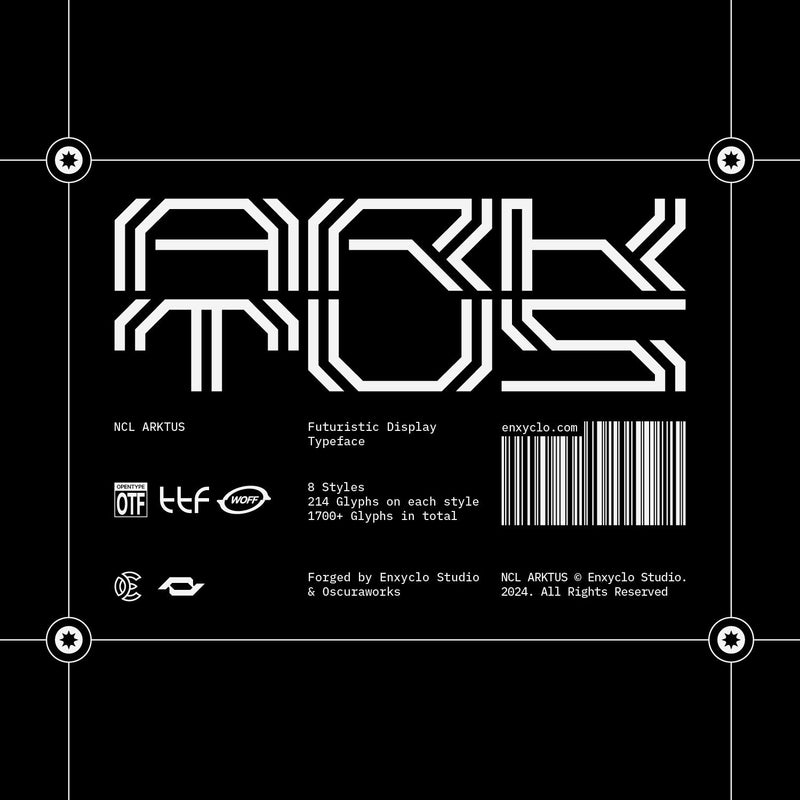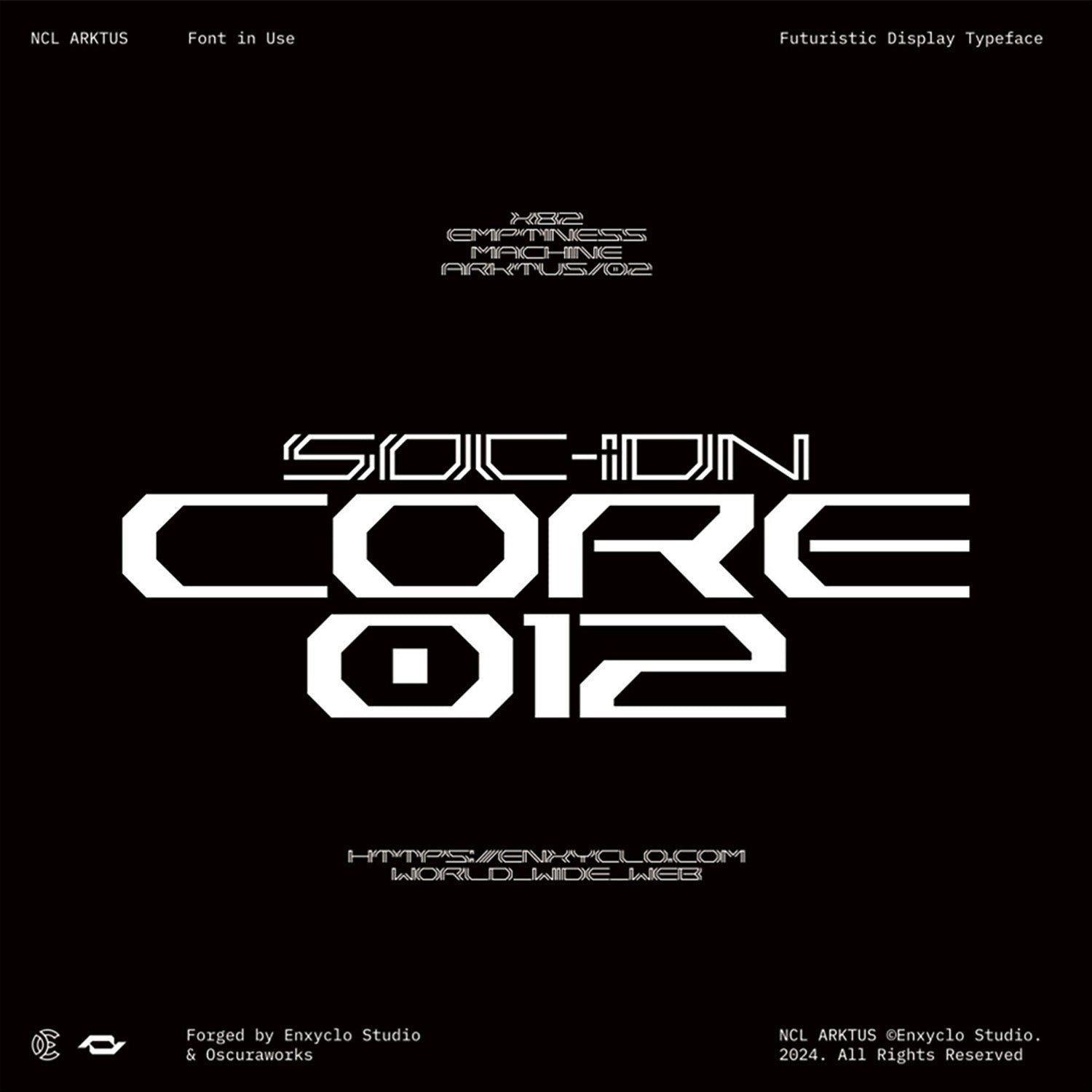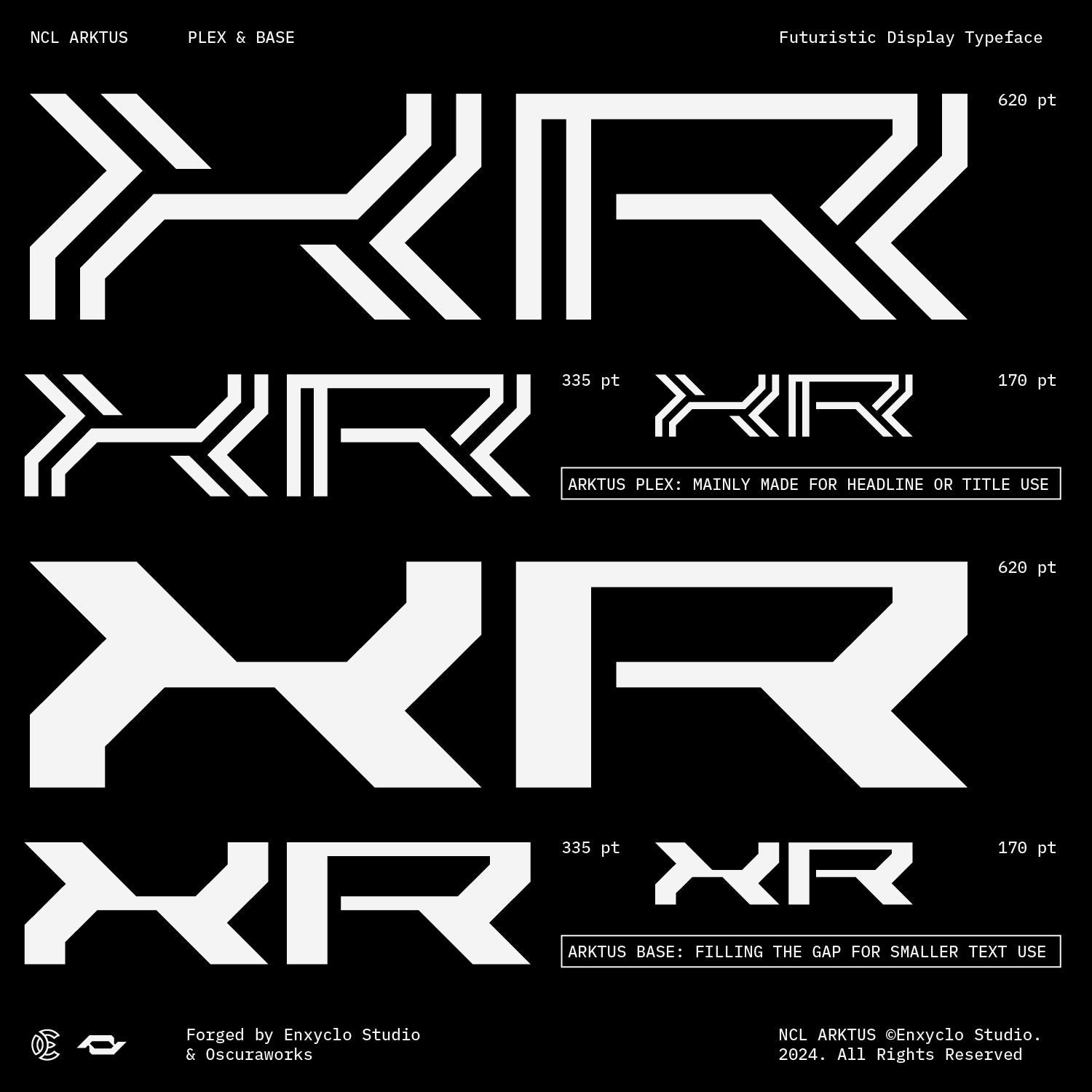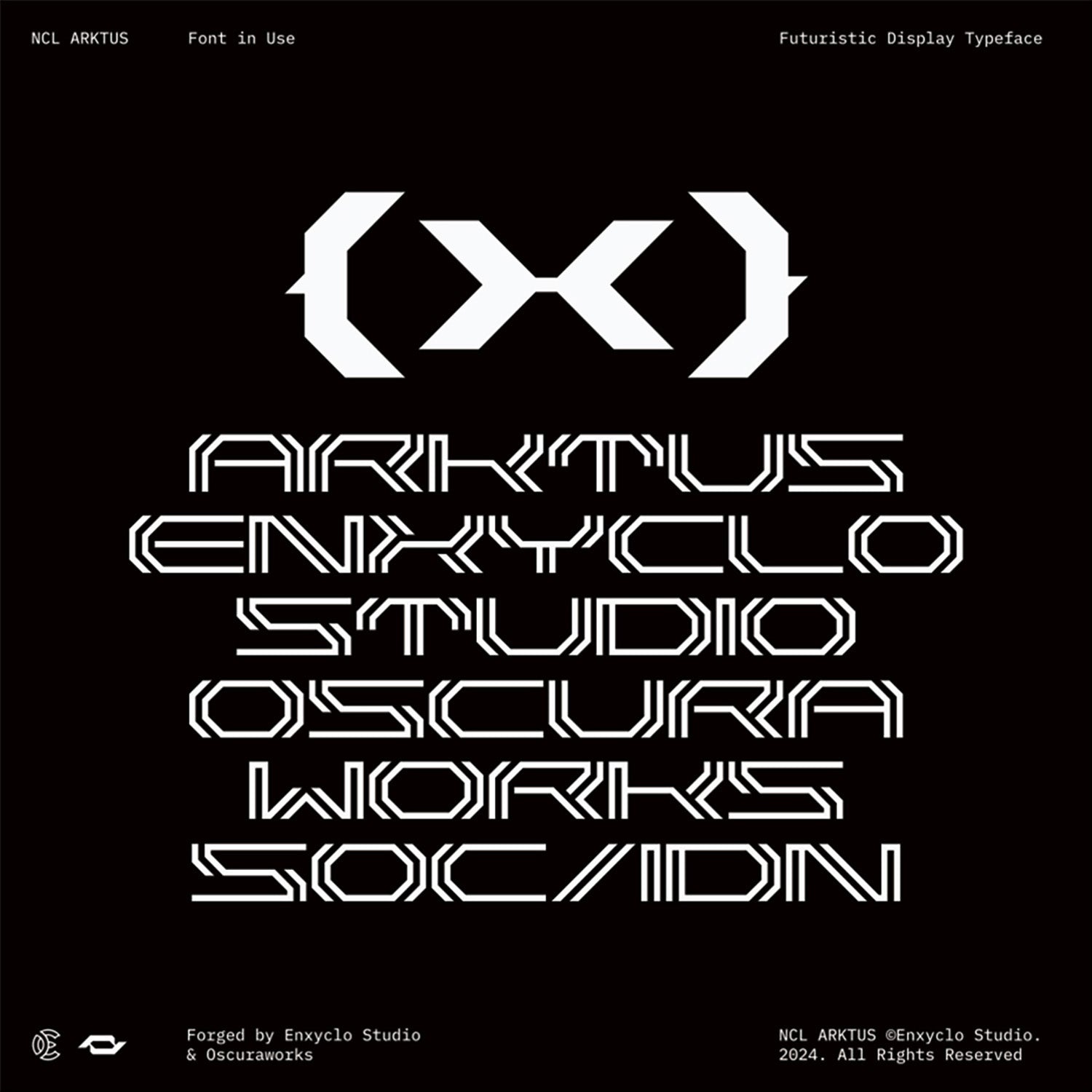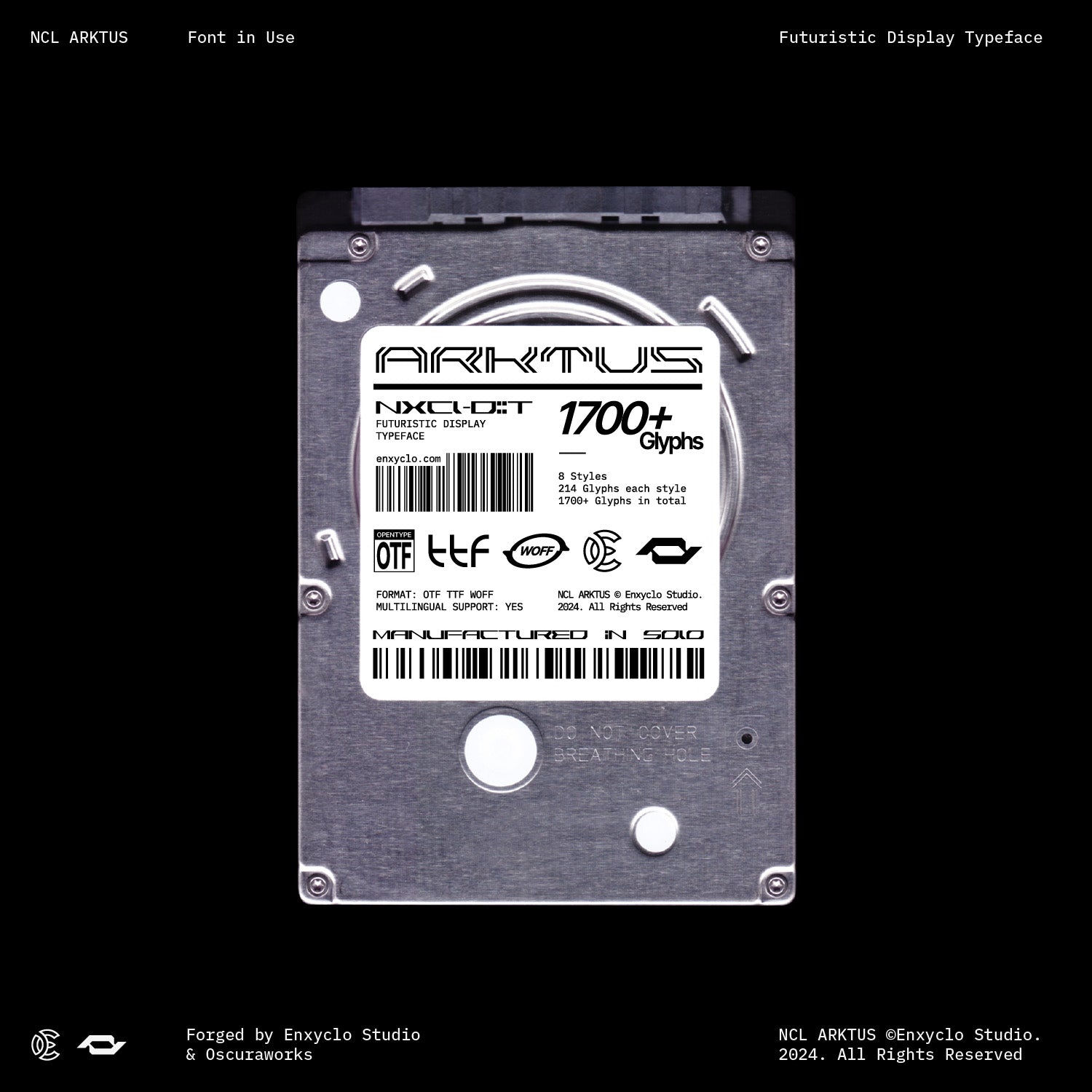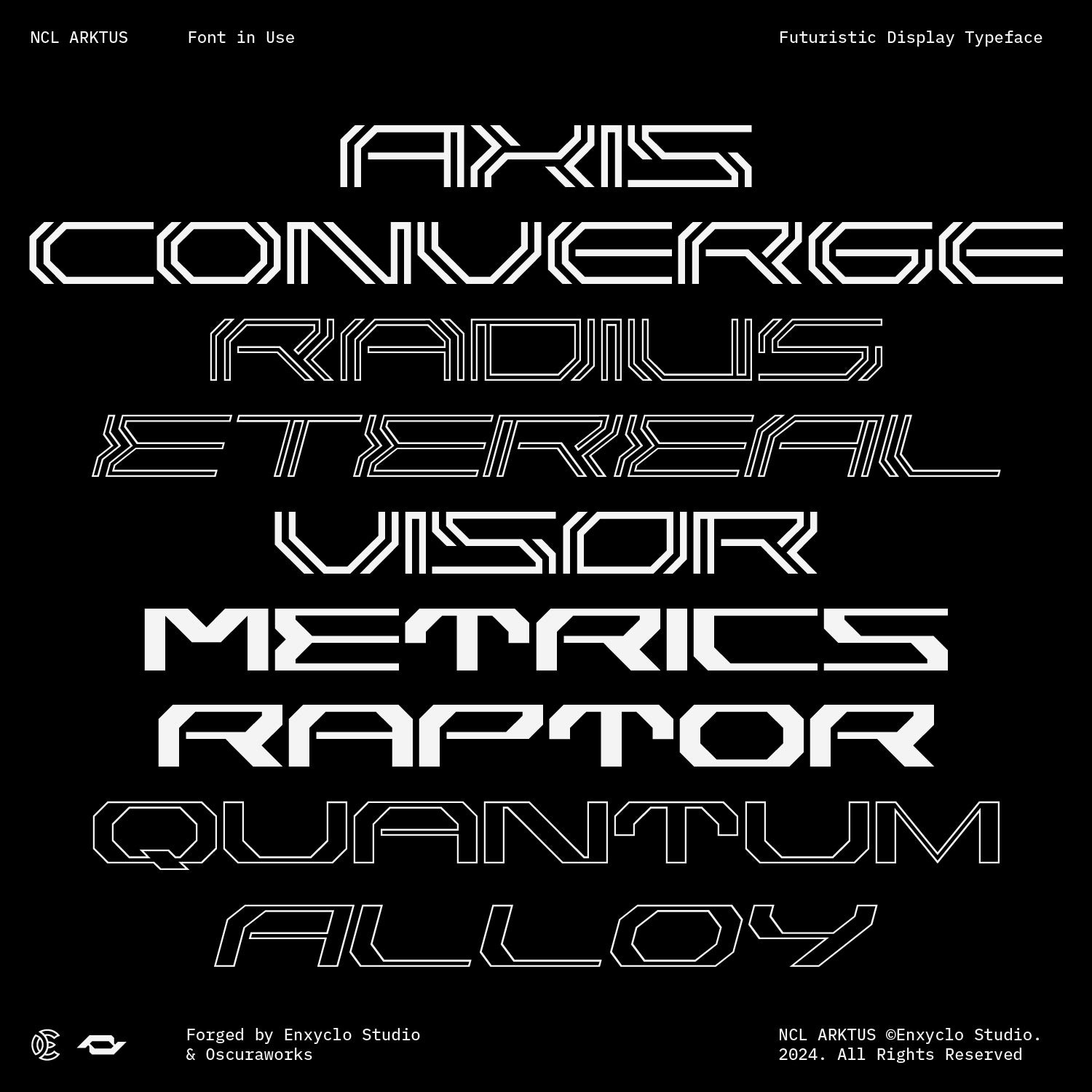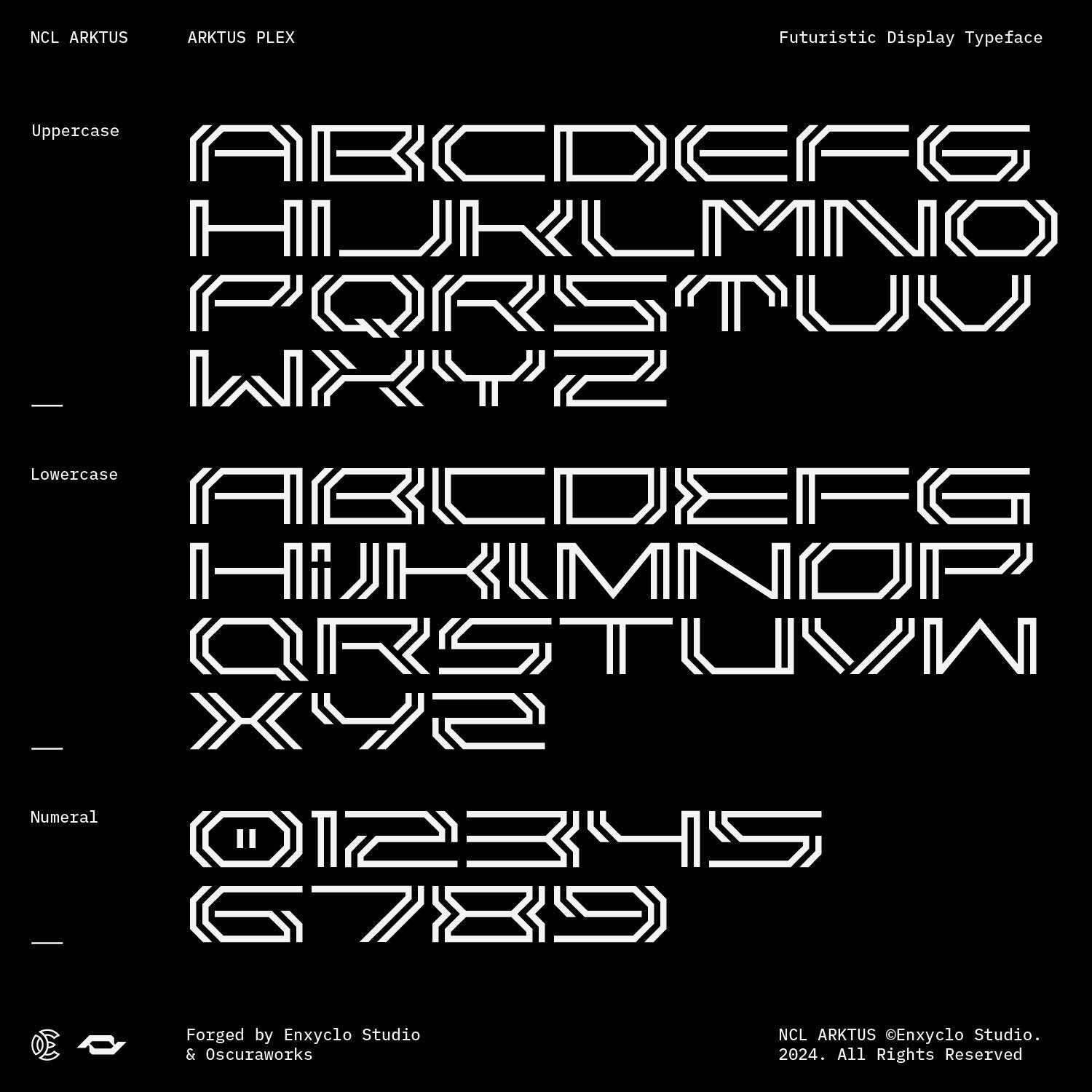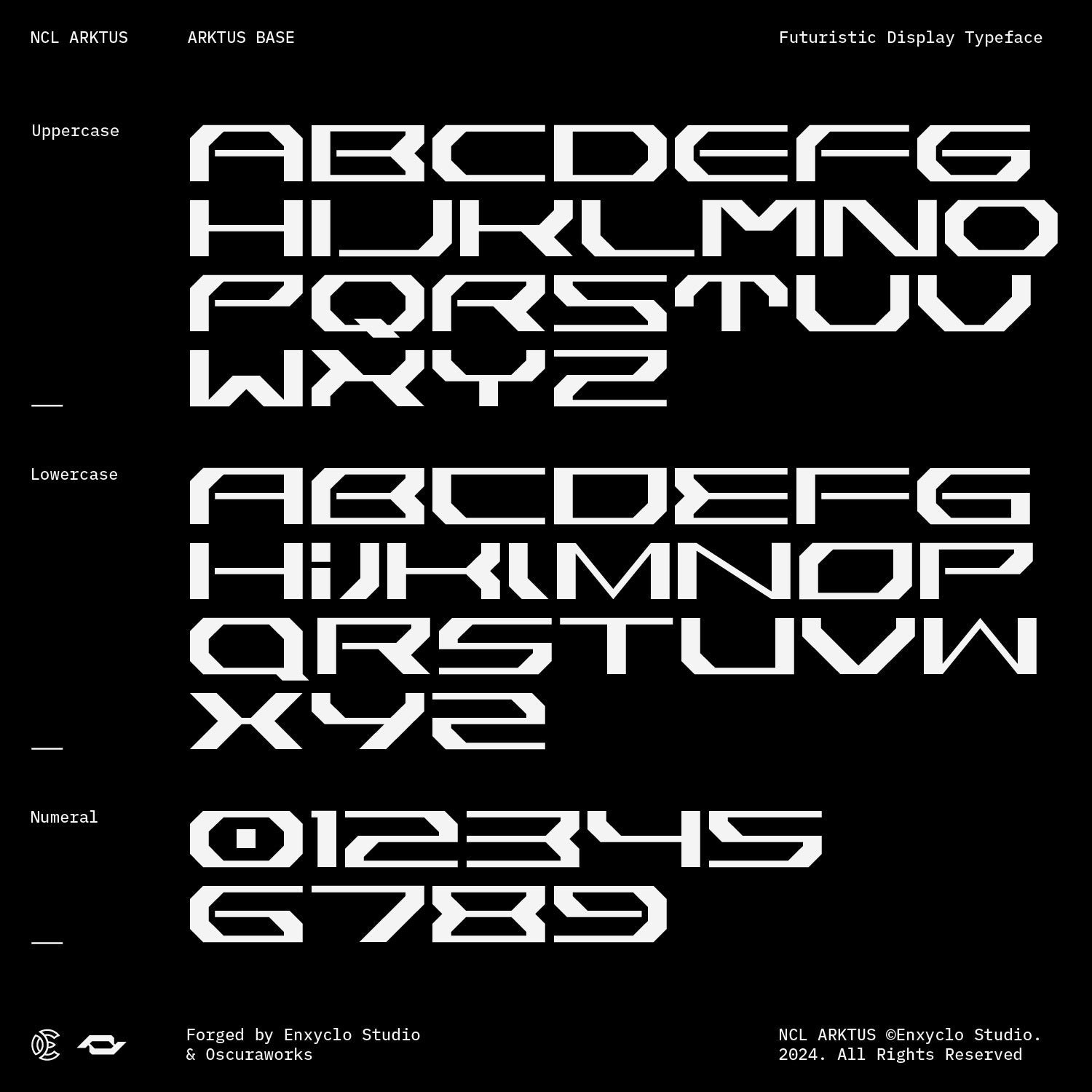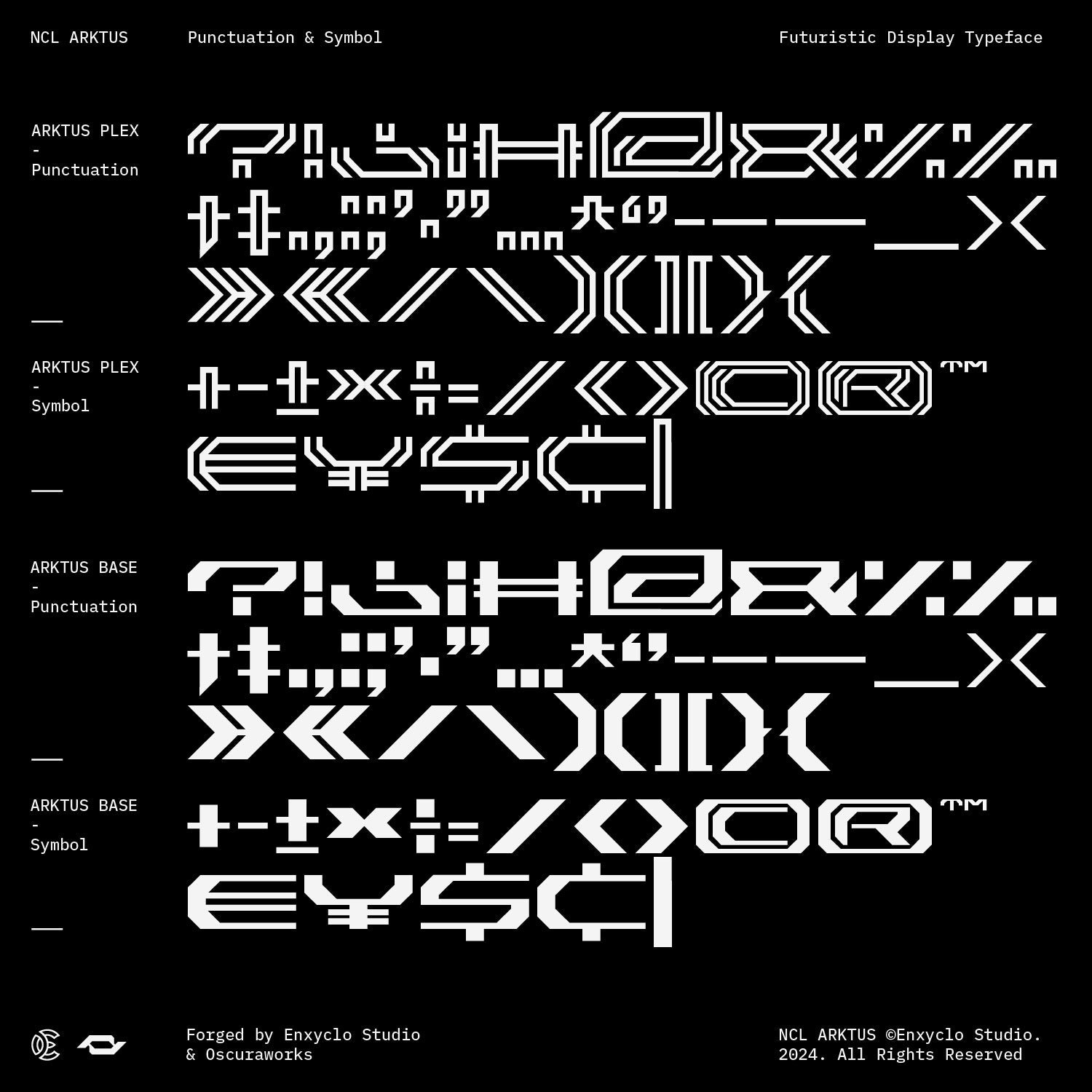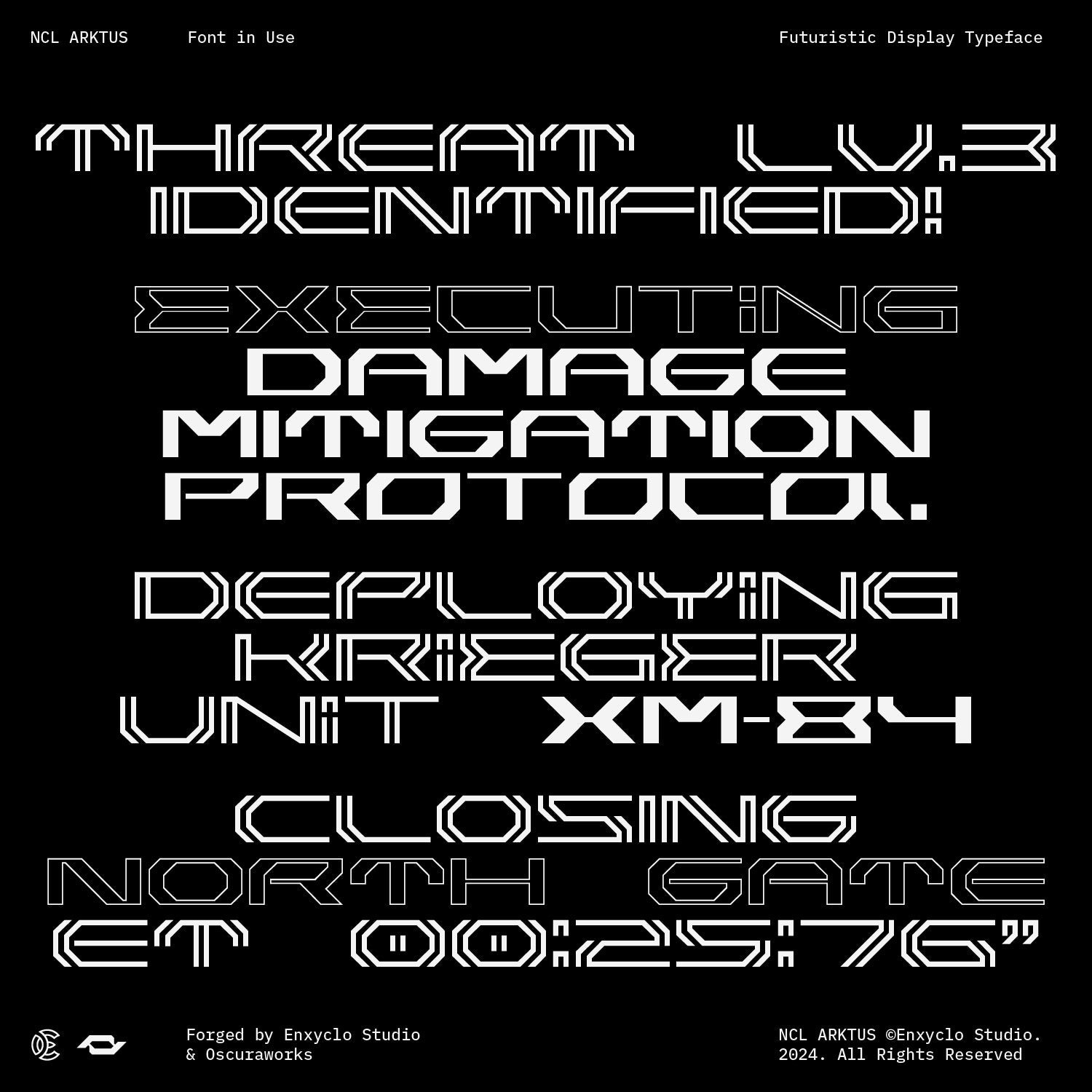
ARKTUS - Font Family
The NCL Arktus Font Family is a futuristic, y2k cyberpunk-inspired typeface that includes various styles such as Base and Plex, each with regular, outline, and oblique versions. The font package features True Type, Open Type, and Web Open Font formats, and contains 217 glyphs for each style, 11 ligatures, and offers uppercase, lowercase, numeral, punctuation, symbols, and multilingual support.
Ideal for futuristic and cyberpunk design projects. Perfect for album artwork, streetwear branding, posters, and headlines, ensuring a bold and industrial aesthetic that captures attention.